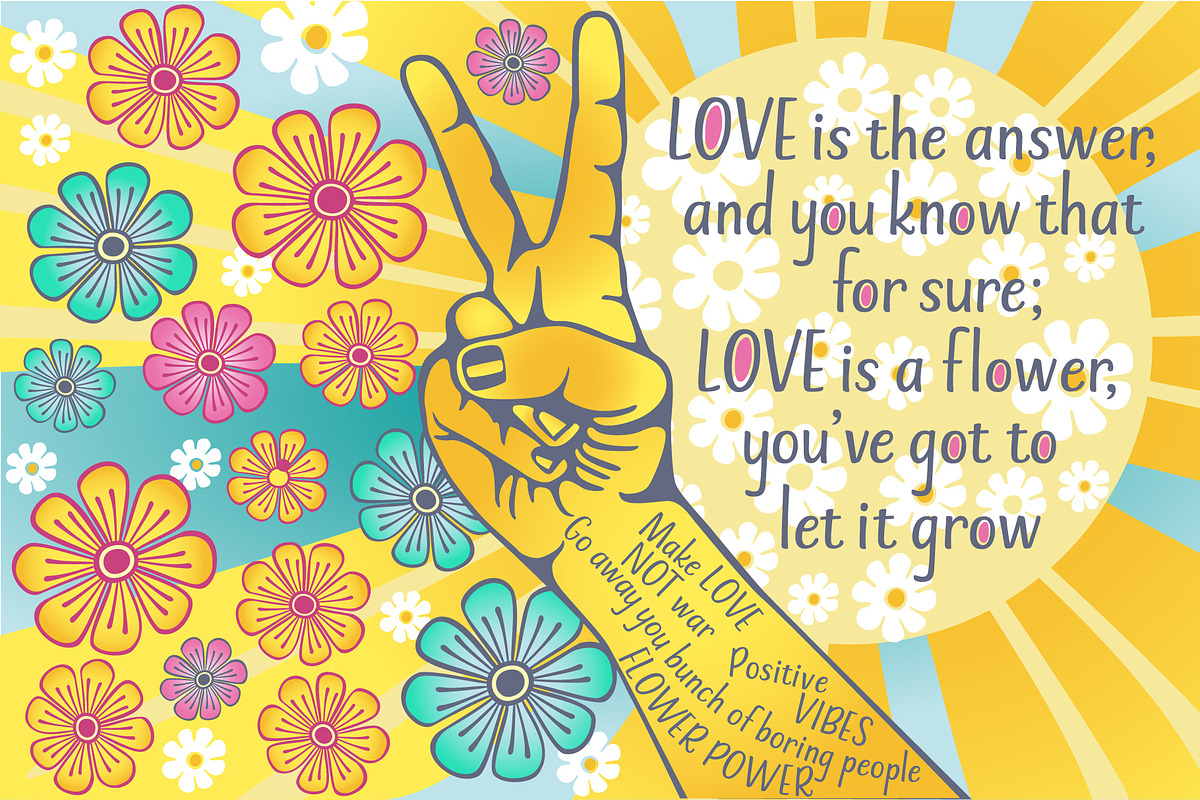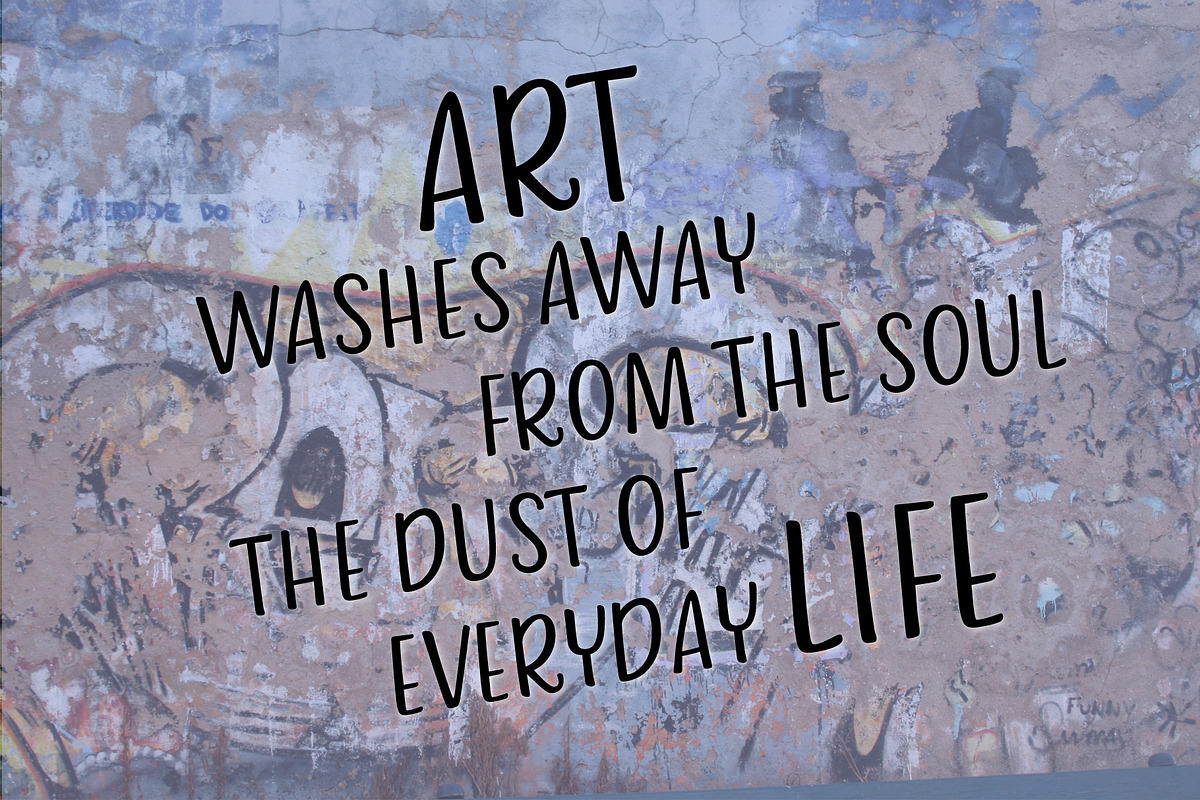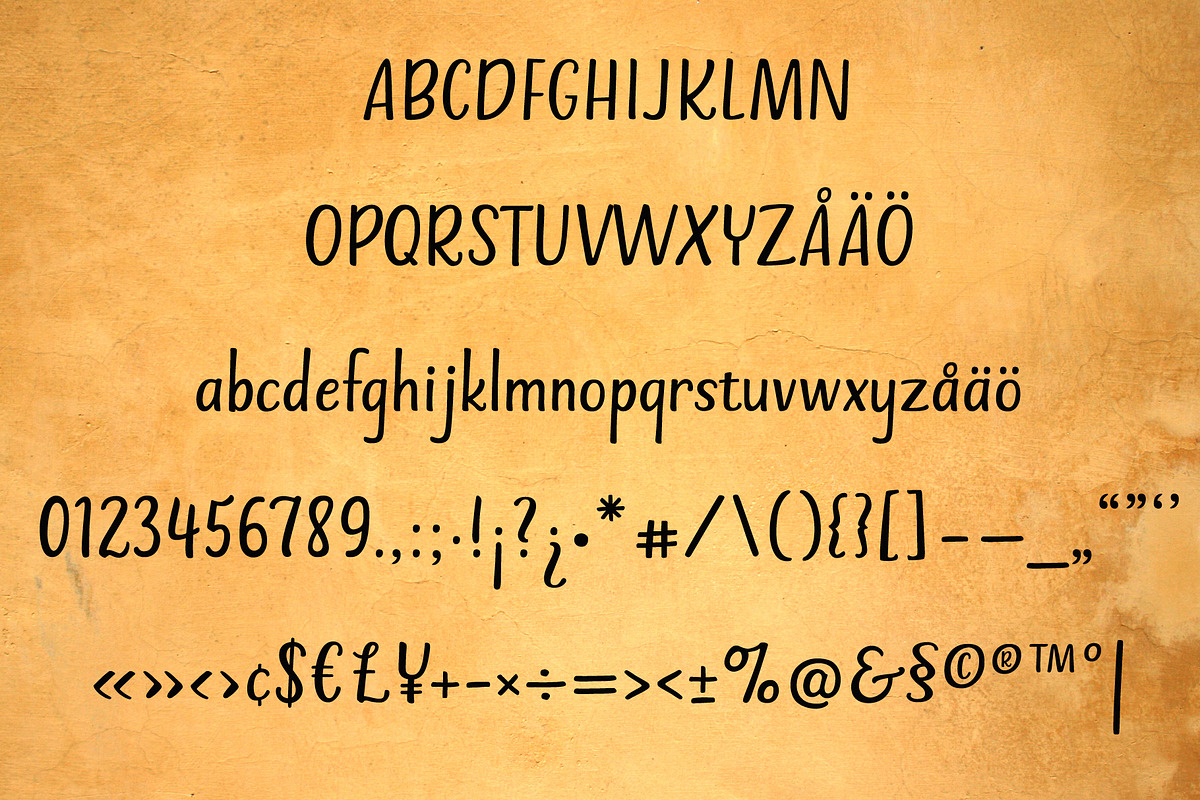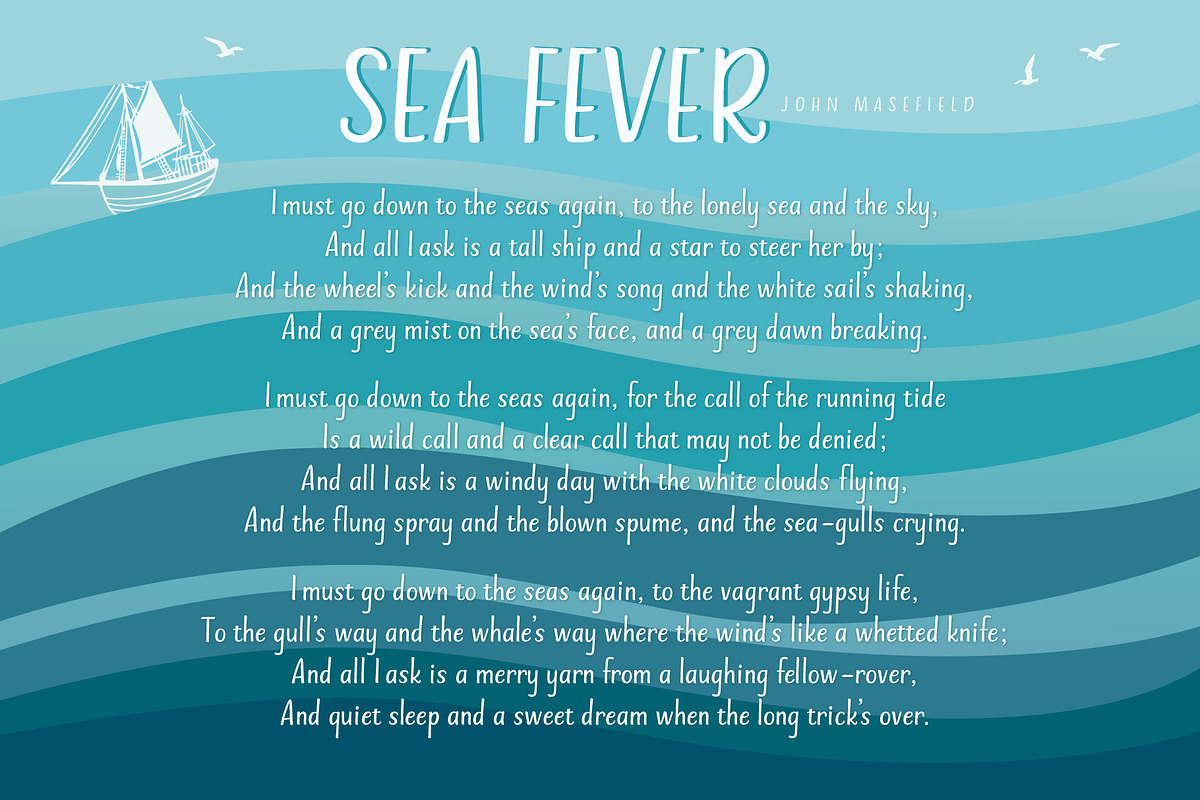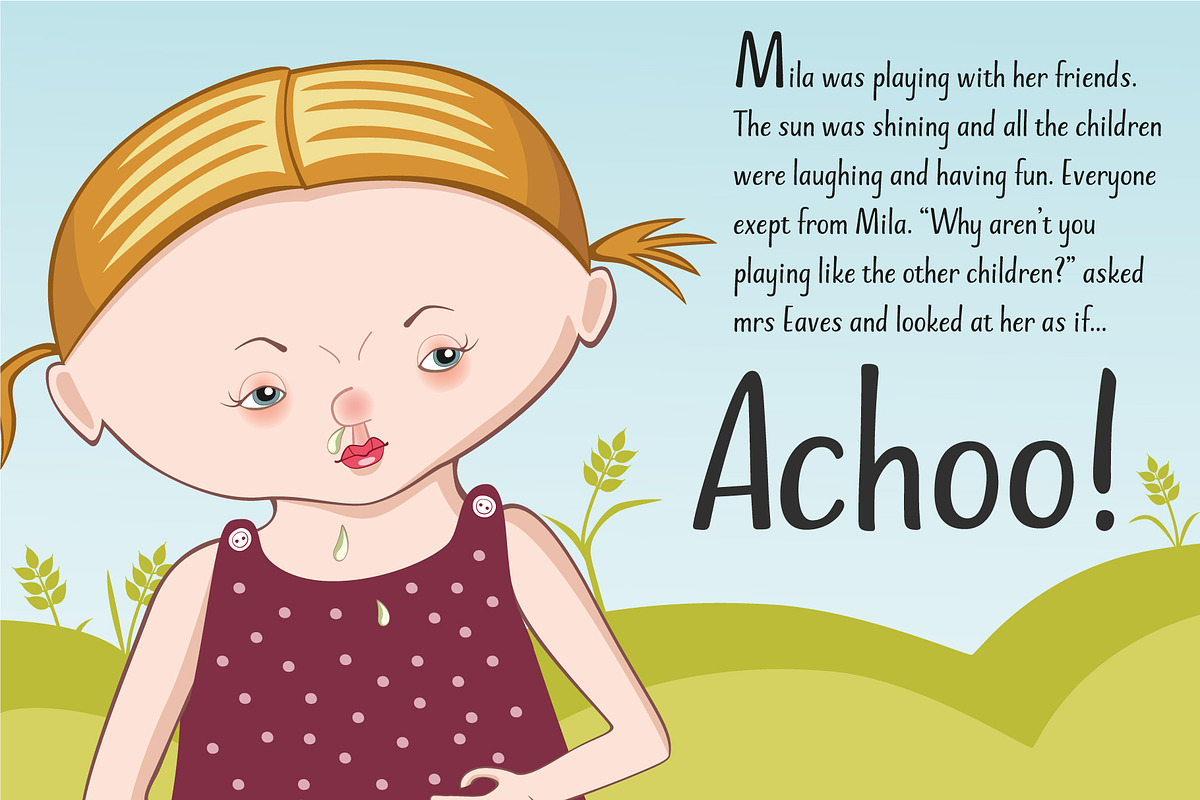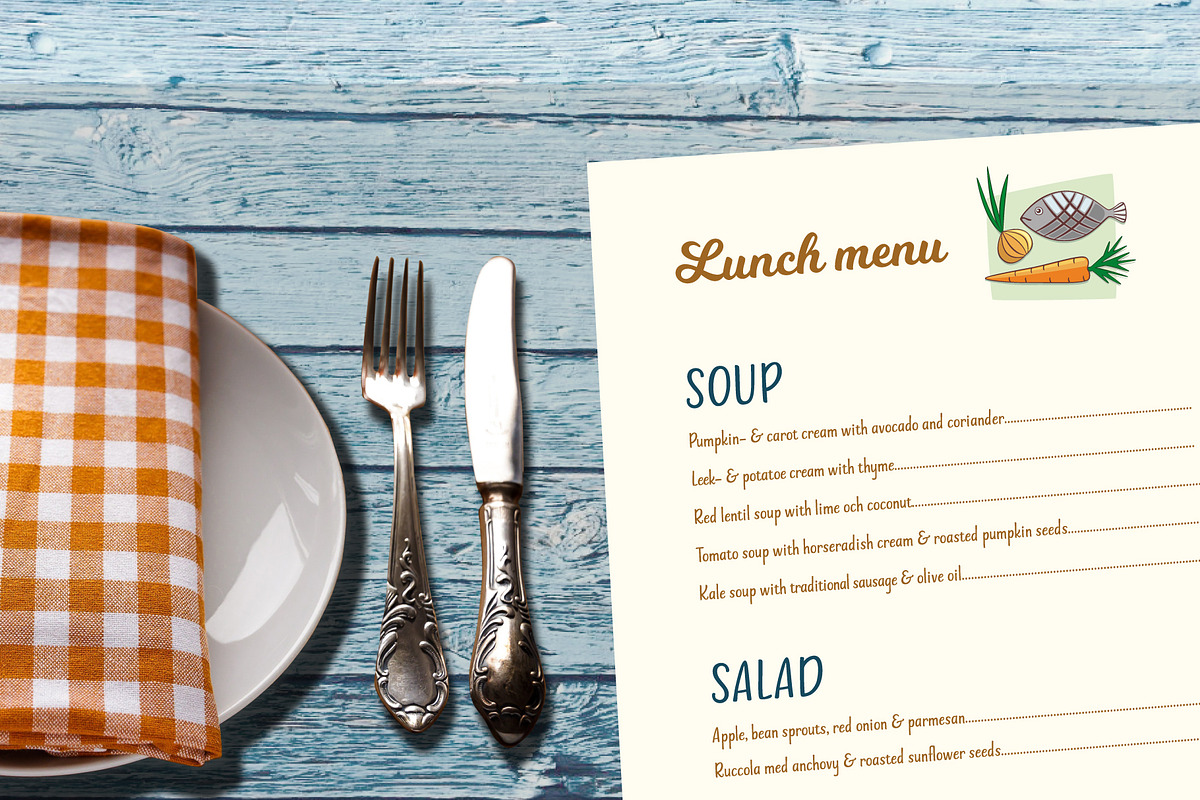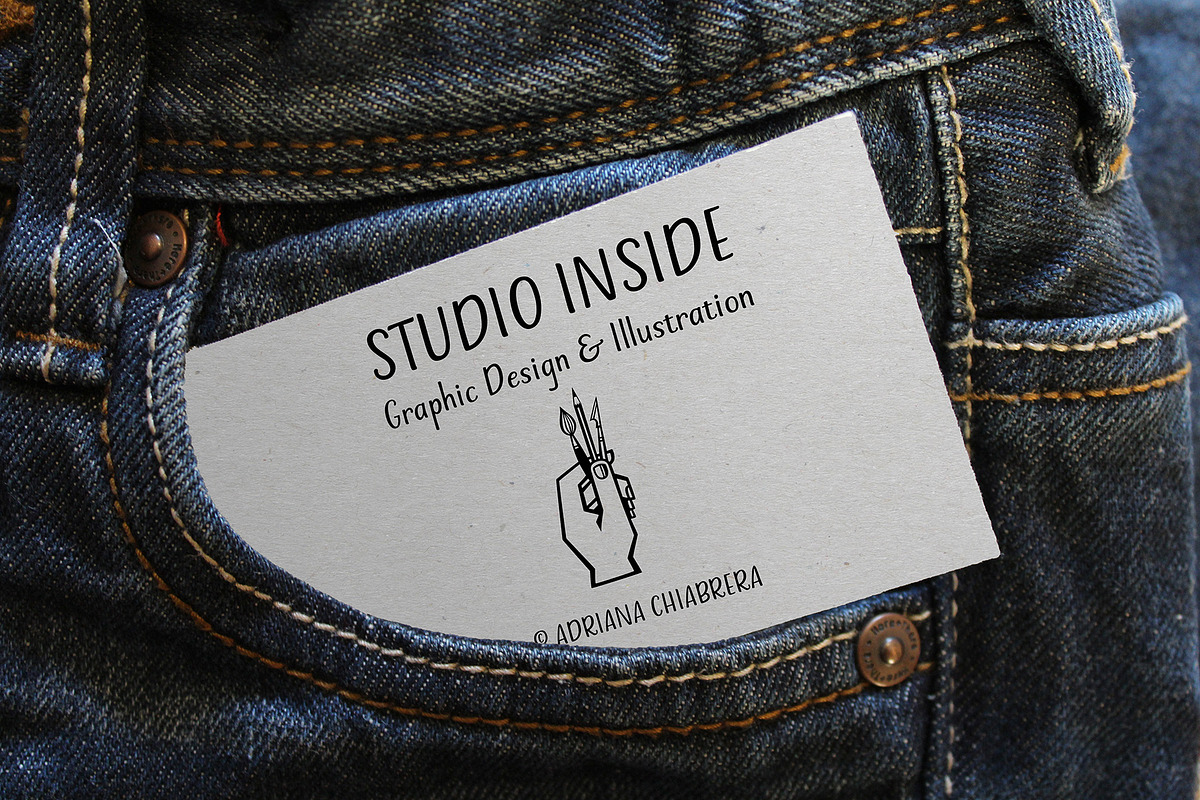
Indigo Love a Sans Serif Font
Indigo Love is a soft and clean sans serif font based on handwritten brushpen letters. This easy-to-read font with its rounded shapes and terminals has a friendly look to it that makes it useful for many different kinds of purposes such as products for children, menus, posters, signs, logos, etc. It comes with diacritic letters for all the European languages. The uppercases are quite tall and so are the ascenders/descenders.
Numerals and Punctuation.
- It comes with diacritic letters for all the European languages.
- Indigo Love includes Uppercase Letters Lowercase Letters Numerals and Punctuation.
- Multilingual support (Diacritics) is included for all European languages .
- It comes with diacritic letters for all the European languages.
- Indigo Love includes Uppercase Letters Lowercase Letters Numerals and Punctuation.
- Multilingual support (Diacritics) is included for all European languages .
- The uppercases are quite tall and so are the ascenders/descenders.
- Indigo Love includes Uppercase Letters Lowercase Letters Numerals and Punctuation.
- Multilingual support (Diacritics) is included for all European languages .